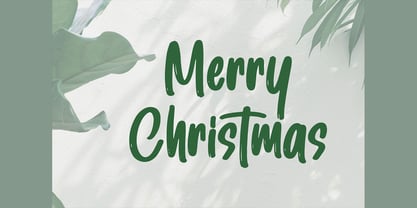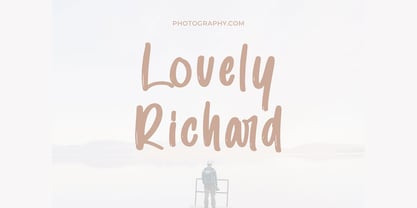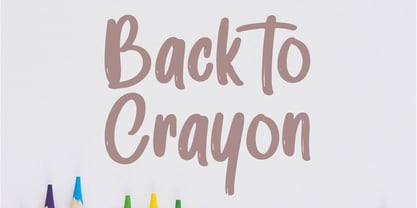
Hard Lighter
by Chatype Studio
The Hard Lighter Font Family was designed by and published by Chatype Studio. Hard Lighter contains 1 styles. More about this family
Hard Lighter is a vintage script font that exudes hand-drawn charm and rustic energy. With a brush-style aesthetic and organic stroke flow, it offers a lively and textured appearance that captures attention without overwhelming the design. Its casual slant, uneven baseline, and rough ink texture lend a handmade warmth, making it ideal for creative projects with an authentic, retro feel. The font includes uppercase and lowercase letters, punctuation, symbols, numbers, and extensive multilingual support, ensuring versatility across various languages and applications. Whether you’re working on retro logos, handcrafted labels, apparel, or signage, Garmitha adds character and nostalgia.